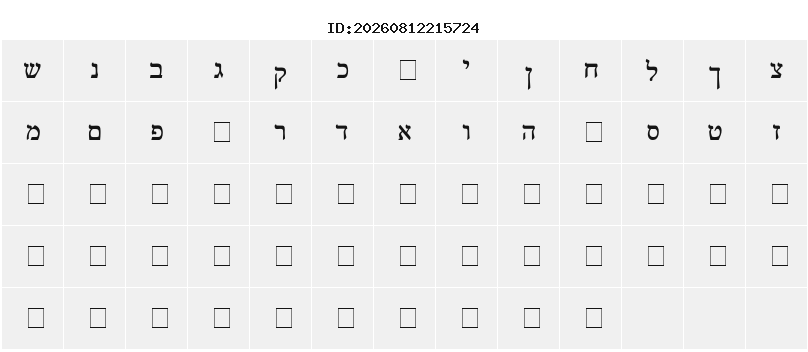
Reuven Preview
• Font Name: Reuven
• Full Font Name: Reuven Normal
About Reuven.ttf
Reuven.ttf is a modern, elegant sans-serif font designed for ultimate readability and visual harmony. Perfect for branding, headlines, web design, and print materials.